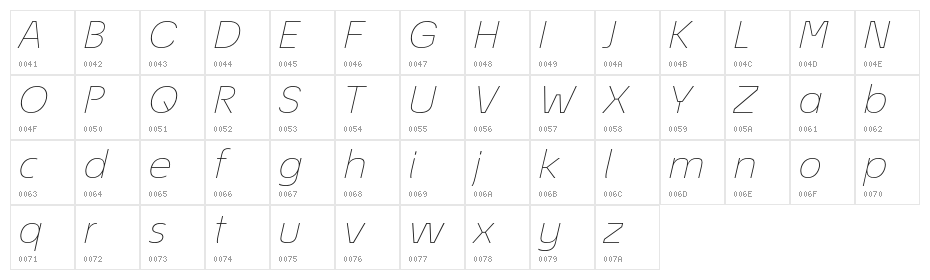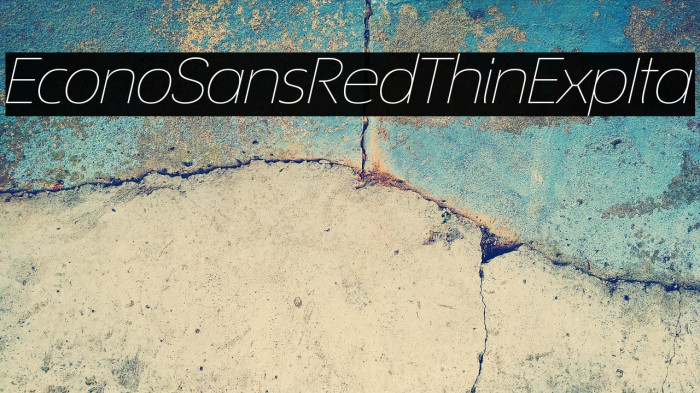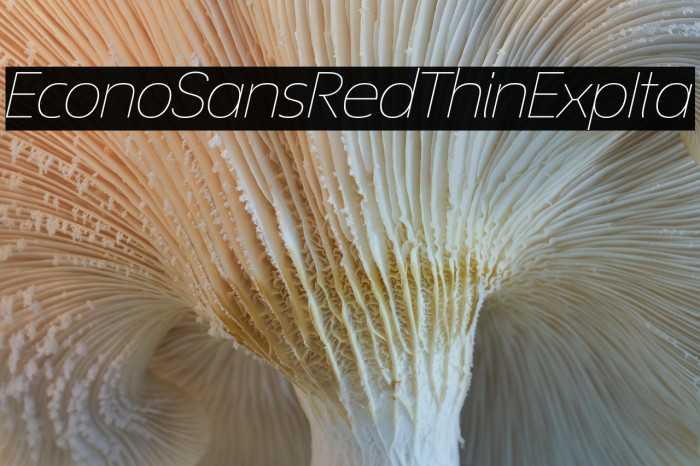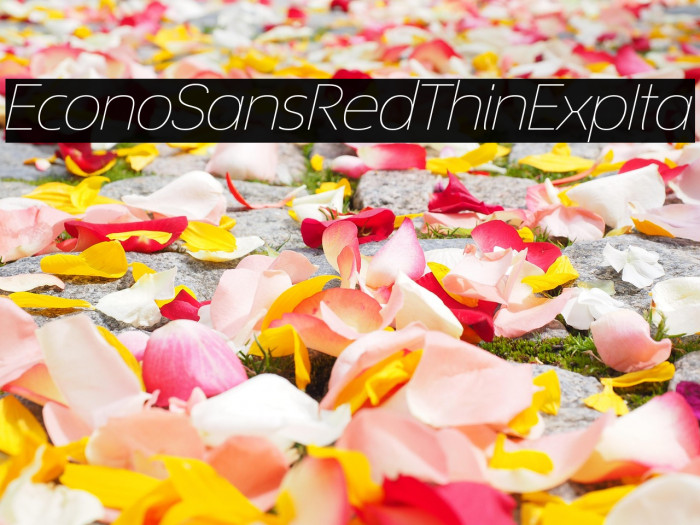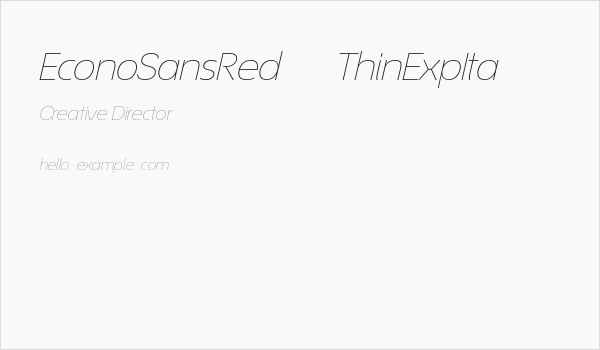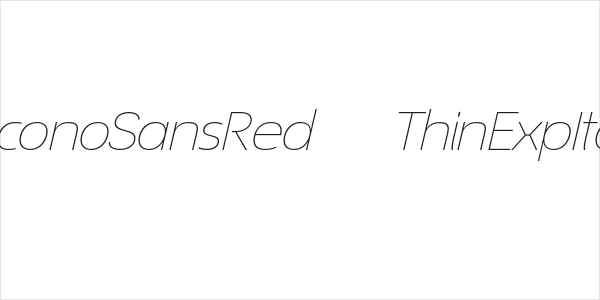
EconoSansRed-34ThinExpIta Font
EconoSansRed-34ThinExpIta Description
This font features a sleek, modern design with a thin, elegant stroke that gives it a refined and sophisticated appearance. The characters are slightly italicized, adding a sense of motion and fluidity. The uppercase and lowercase letters maintain a consistent style, with smooth curves and clean lines. The font is expanded, providing a spacious feel that enhances readability. Its minimalist aesthetic makes it suitable for contemporary design projects, where clarity and style are paramount.
| Proposed Projects | Ideal for branding, editorial design, fashion magazines, and modern websites. |